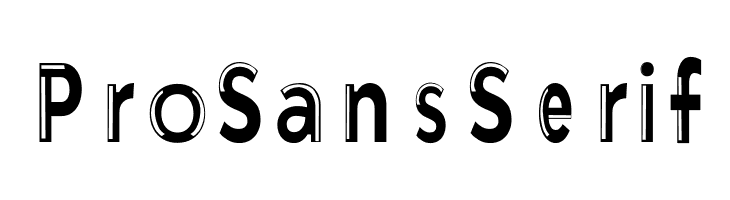
( Introduction Pro sans serif font is a modern sturdy and striking sans serif typeface that furnishes an attractive look to designs and texture contents when used with Arial font. The main designer of this typeface is a well-appreciated designer Freefontfa )